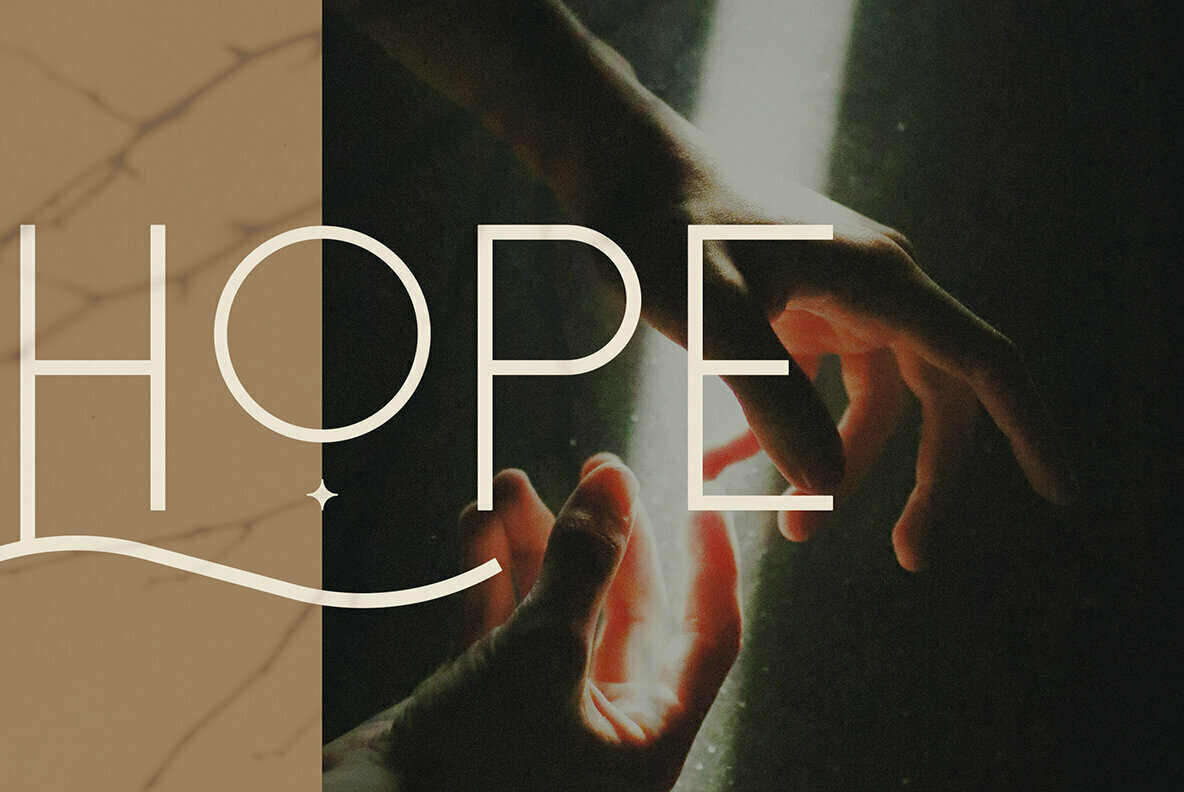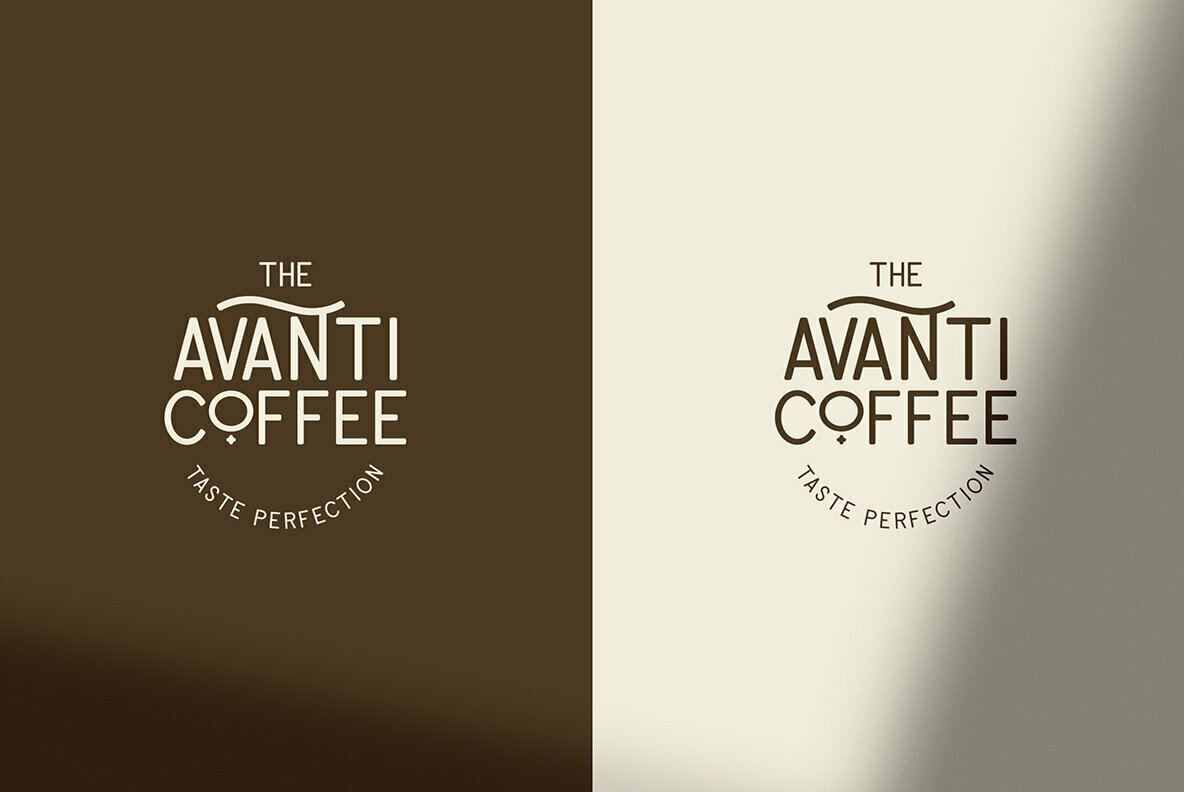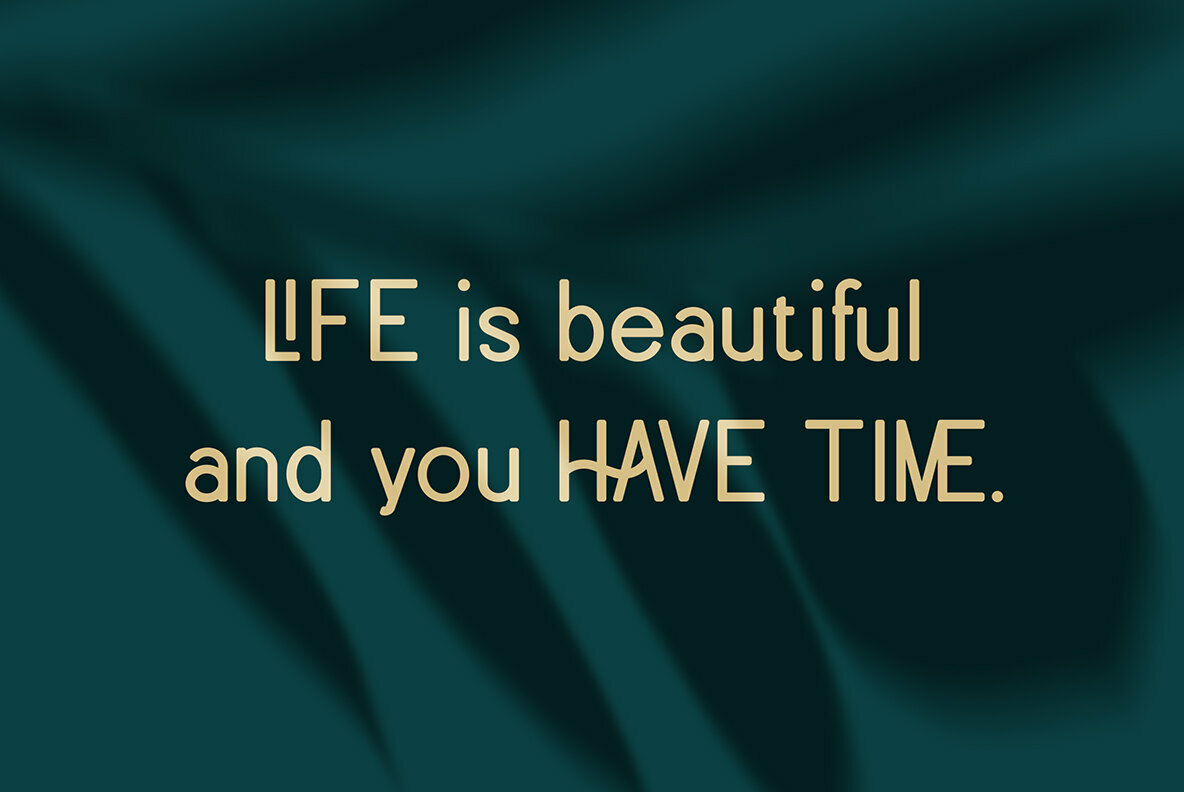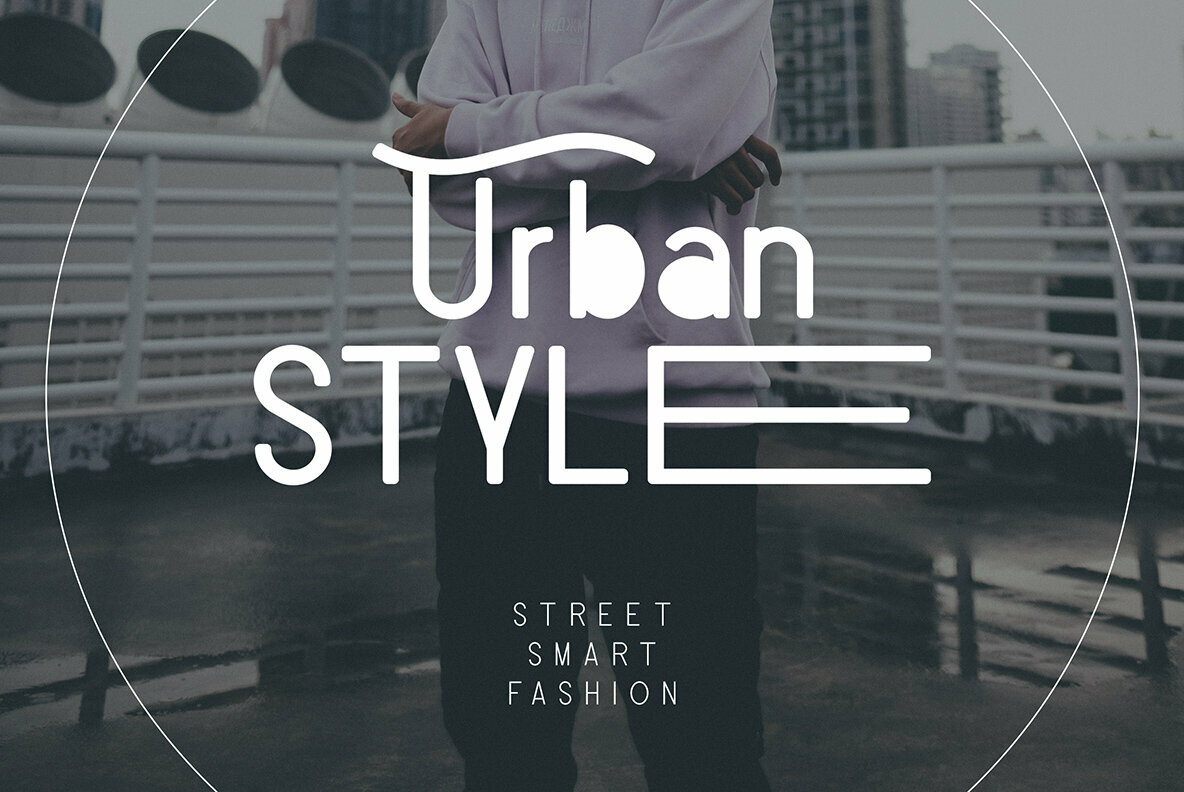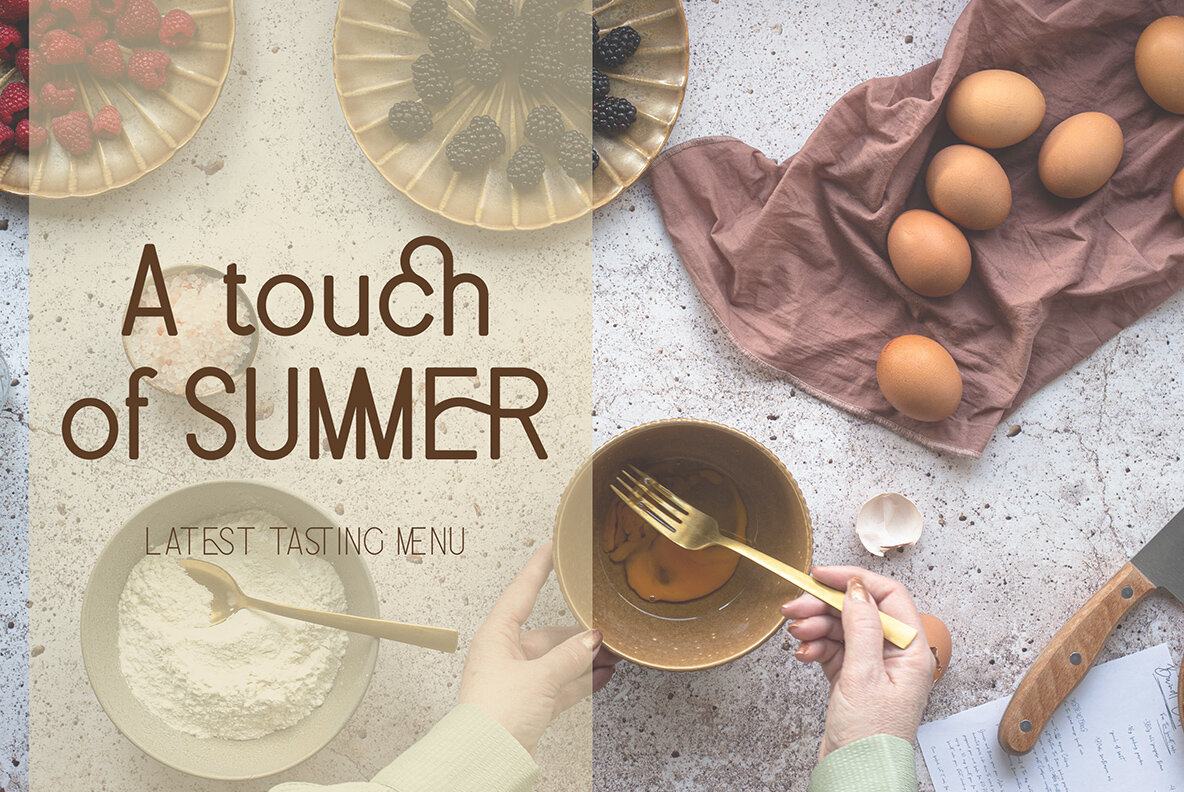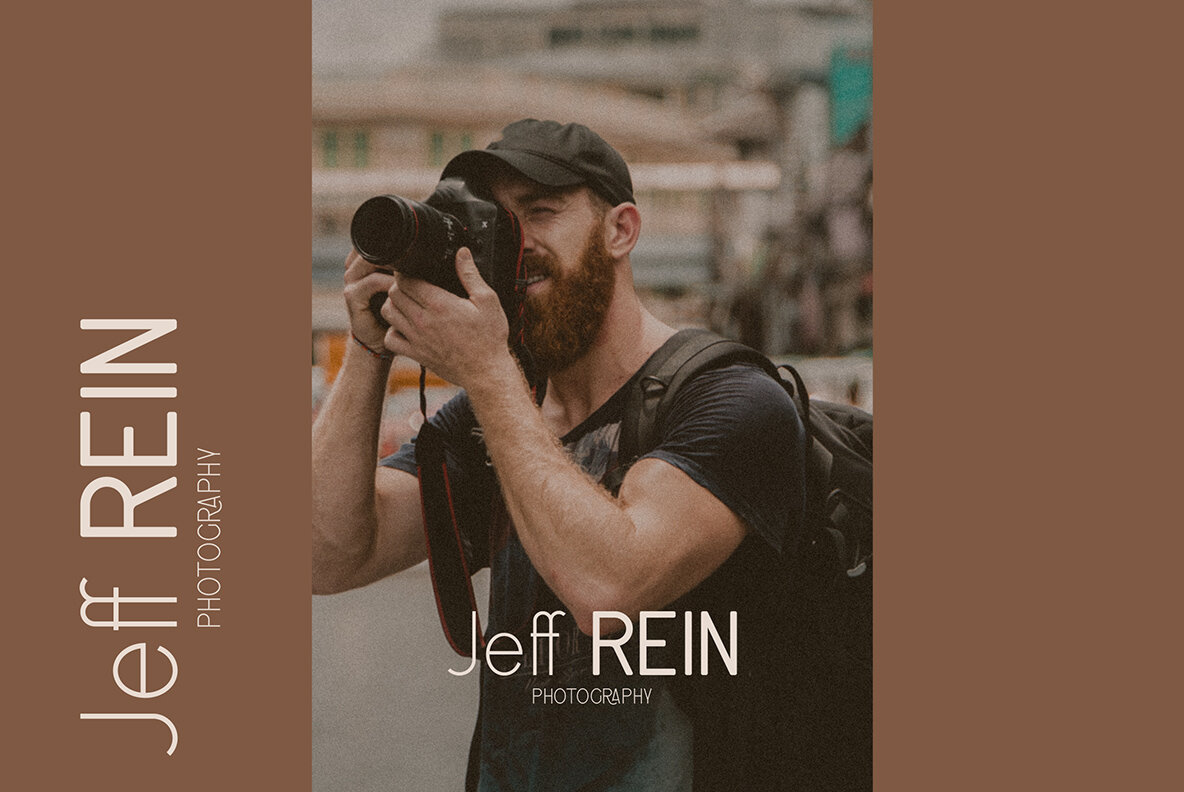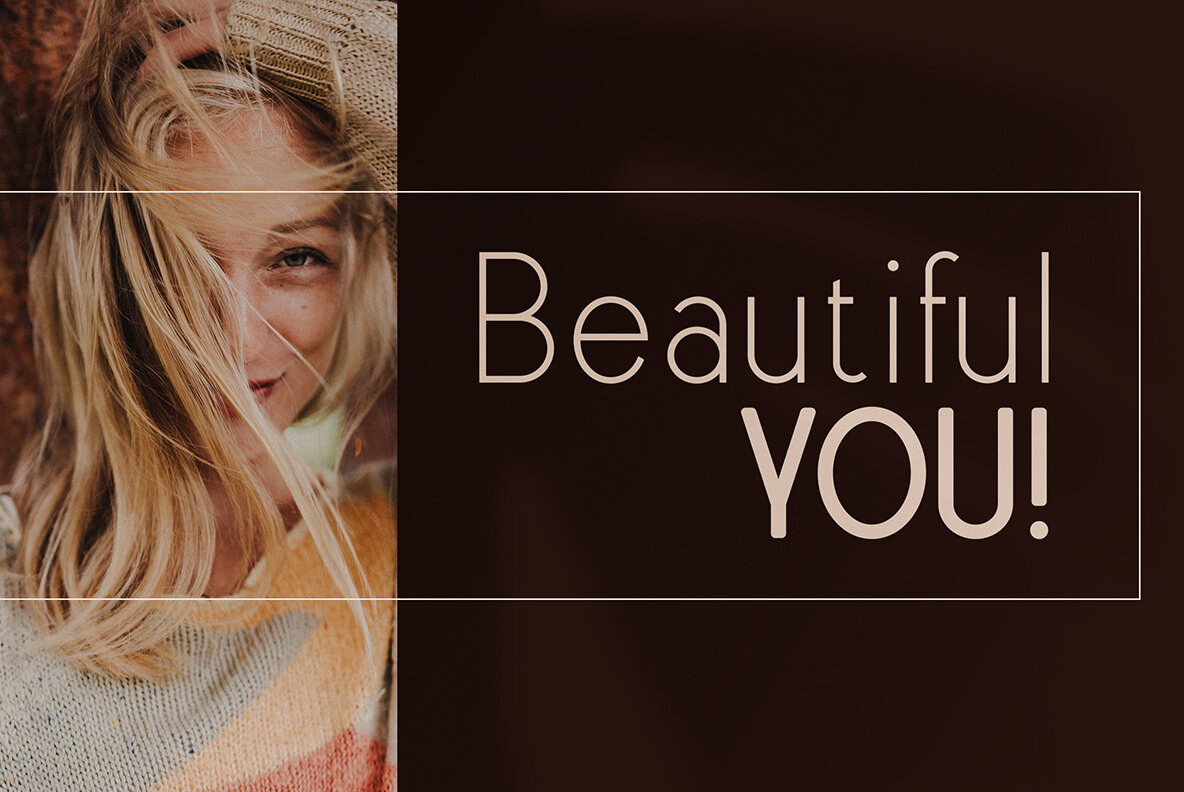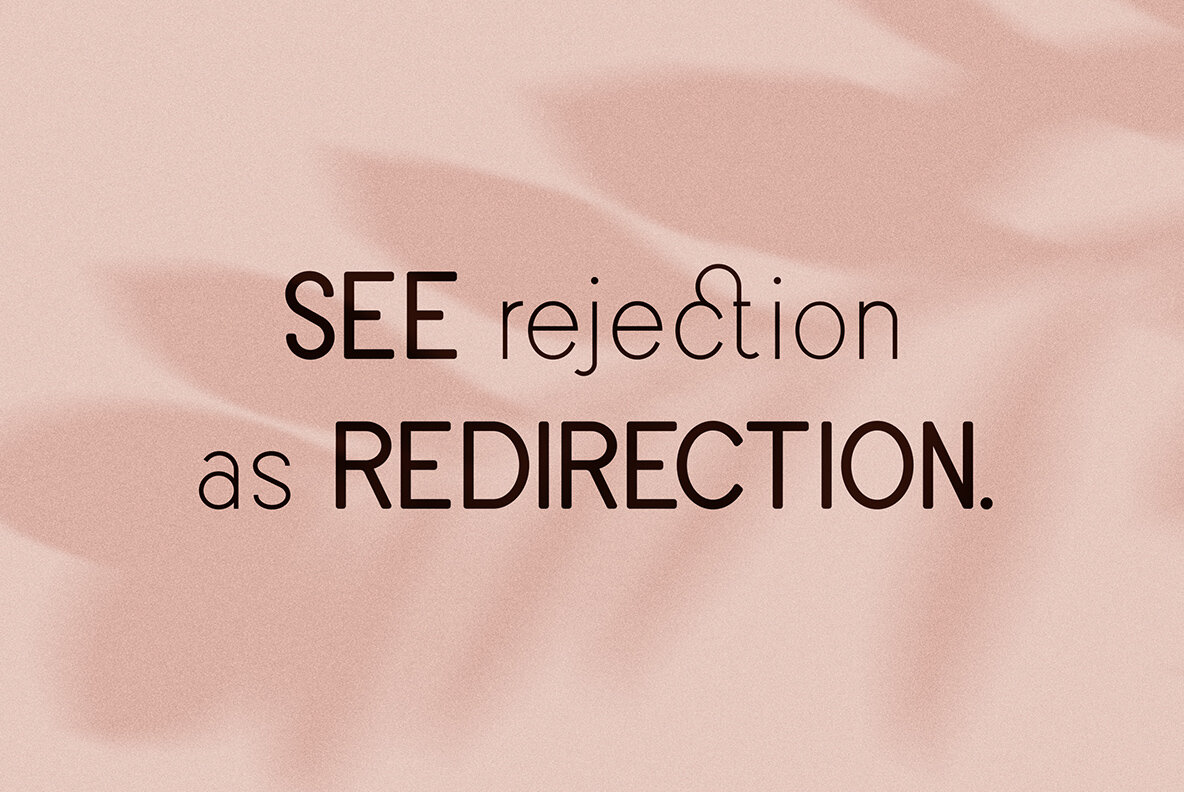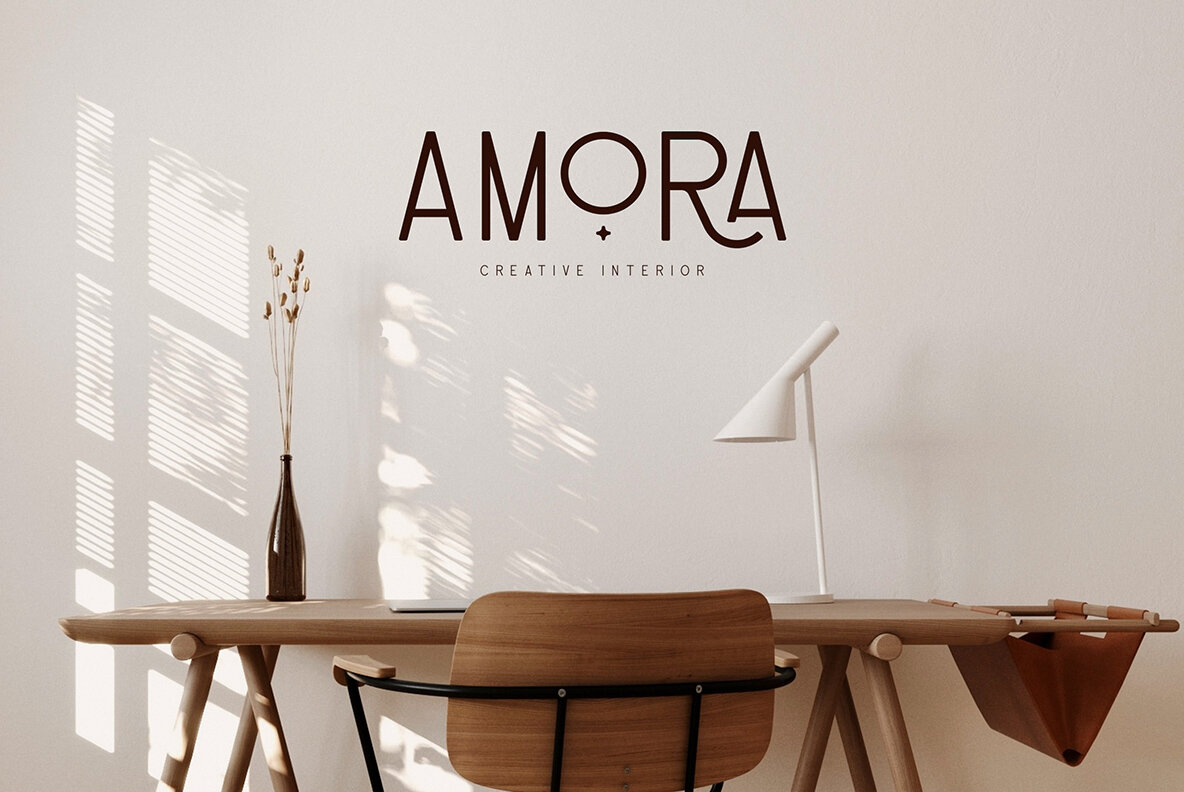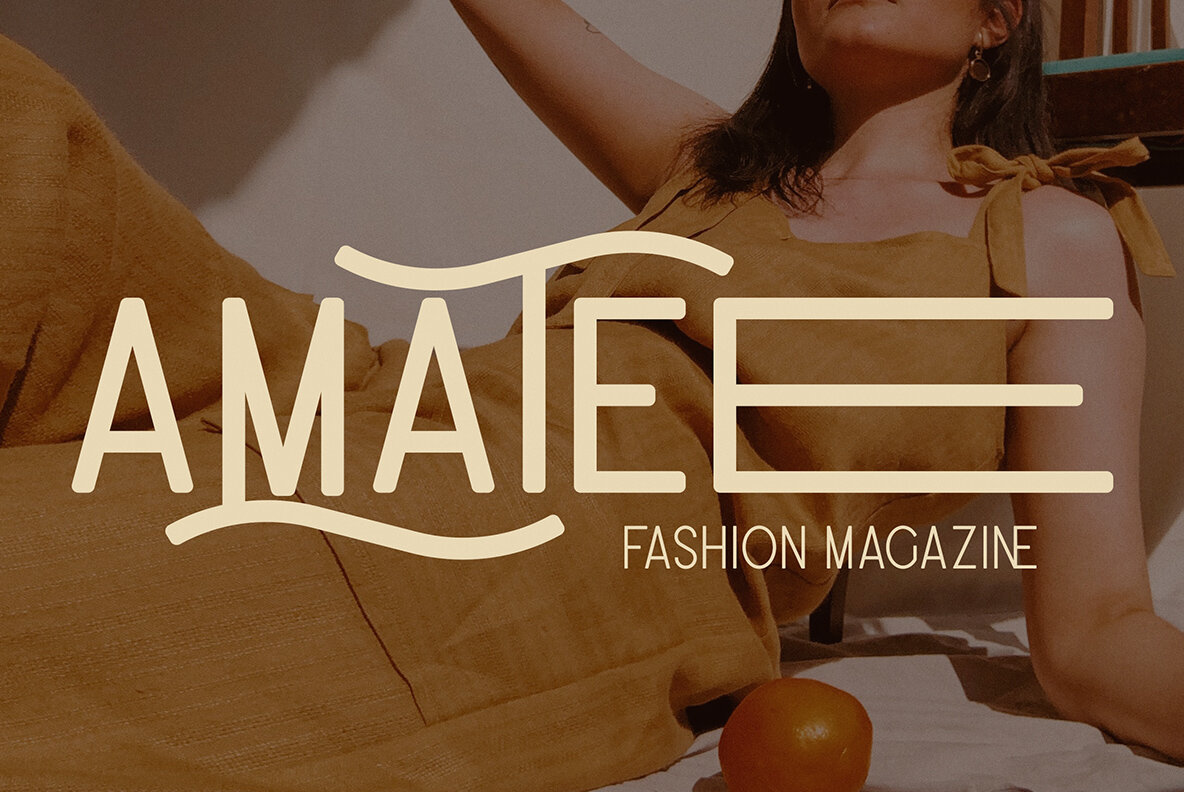
Enchanted Love Font
Enchanted Love is classic yet creative typeface loaded with 8 fonts, alternate and ligature glyphs to make you typography truly unique!
FEATURES:
- Uppercase, lowercase, numeral, punctuation & Symbol -Hairline, Extra light, Light, Regular, Bold, Extra Bold, Black and Heavy versions
- Cyrillic support
- Ligature glyphs
- Multilingual support - 95 languages